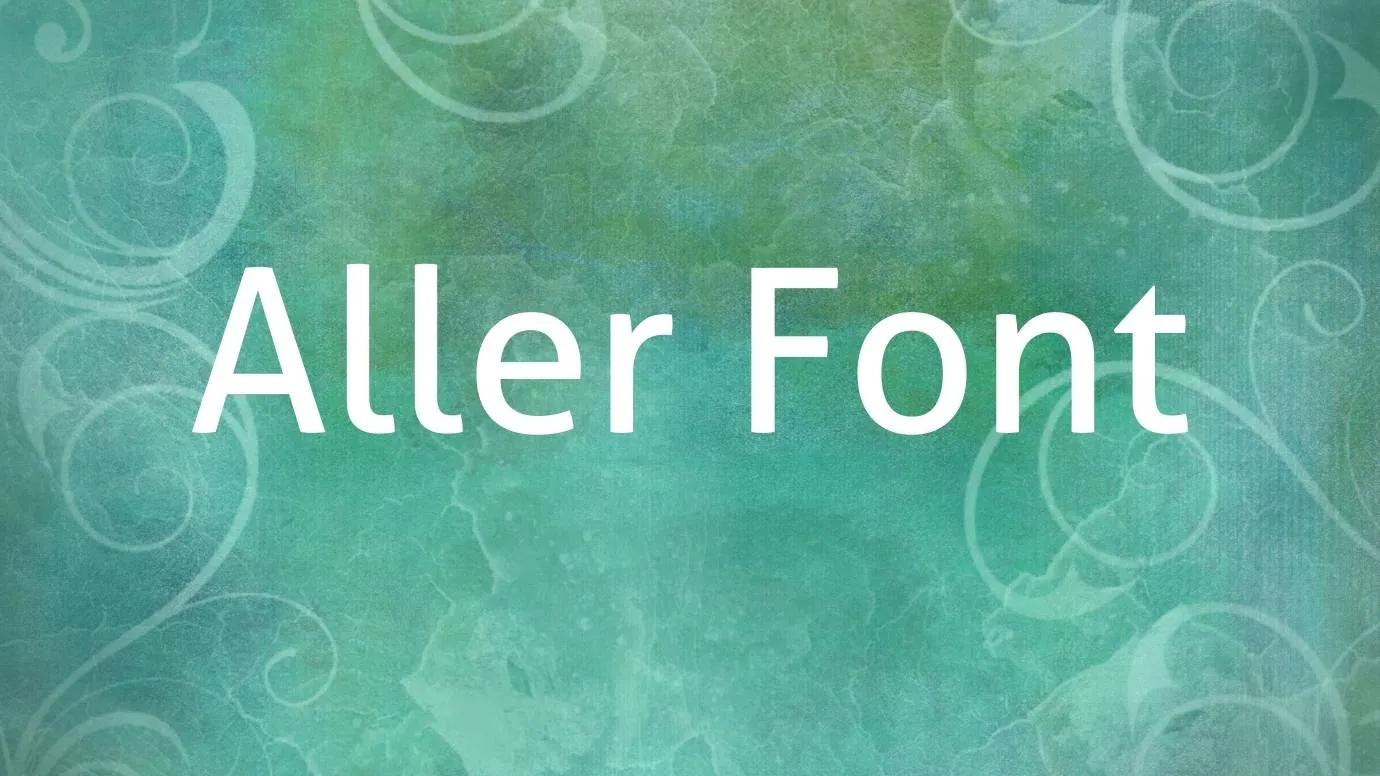
Aller Font Family is a modern Sans-serif typeface. This stylish typeface was developed by a popular and intelligent designer known as Dalton Maag. This beautiful font was released  by the Danish School of Media.
It is perfect for use in functional display fonts. This famous typeface comes in seven weights and each weight of this cozy typeface has 666 glyphs with 1024 units/em. It comes in 458 characters including lowercase and uppercase letters.
Aller Font Family